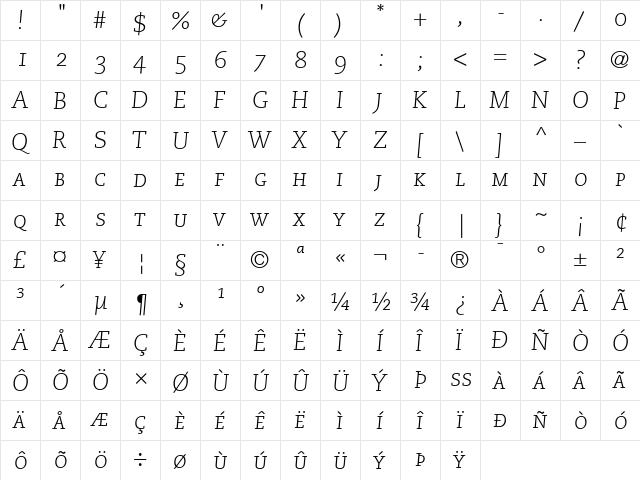
Caecilia LightSC Italic
Design Context for Caecilia LightSC Typeface
Caecilia LightSC takes a measured approach to typography — its balanced proportions and neutral character make it a reliable workhorse for both digital and print work. Its italic angle brings a sense of urgency and motion to the letterforms. The delicate stroke weight brings airiness and refinement to layouts.